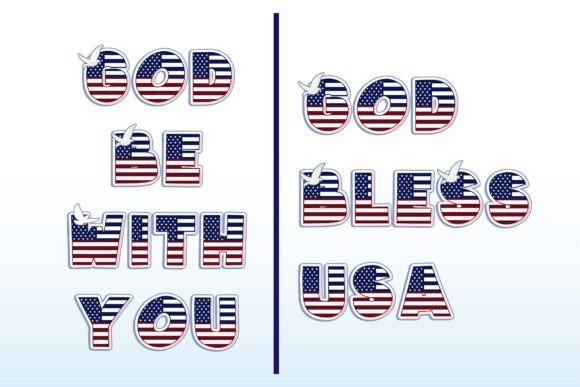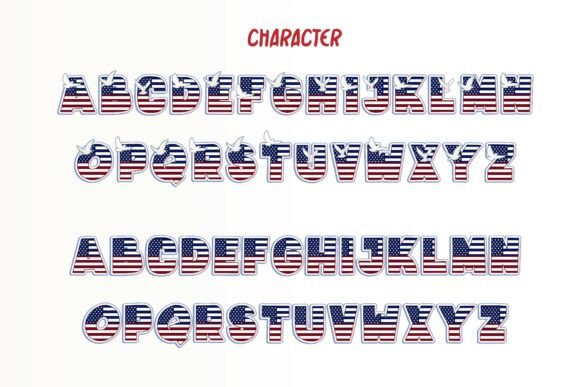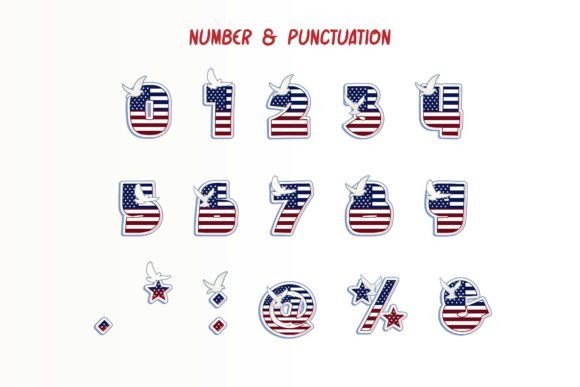
The Freedom to Create: Unlocking the Potential of the Freedom Font
I’ll never forget the moment I stumbled upon the Freedom Font. I was working on a project for a client who wanted a custom design that screamed patriotism and freedom. I had spent hours scouring the internet for the perfect font, but nothing seemed quite right. That was until I stumbled upon this gem – a flag color font that instantly caught my eye. In this article, I’ll share my experience with the Freedom Font, its features, and how to make the most of it in your designs.
- ✨ Unique and eye-catching design: The Freedom Font is not your average font. Its flag color design makes it stand out from the crowd and adds a cool touch to any creation.
- ✅ Highly versatile: Whether you’re working on custom designs, DIY crafts, or just any project that requires a bold statement, this font is an excellent choice.
While the Freedom Font is an excellent addition to any design project, there are a few things to keep in mind:
- ⚠️ Limited language support: The Freedom Font may not support all languages, so be sure to check the character set before using it for a project.
- 🤔 Some OpenType features may not work on all platforms: While the font has excellent OpenType features, some may not work on certain platforms or software.
The Designer Inspiration Behind the Freedom Font
The Freedom Font was designed with the intention of creating a font that embodies the spirit of freedom and patriotism. The designer, inspired by the American flag, created a font that features a unique and eye-catching design. The result is a font that’s perfect for designers, crafters, and creative hobbyists who want to add a touch of personality to their projects.
Q: What is the Freedom Font?
A: The Freedom Font is a flag color font designed to add a touch of patriotism and freedom to your designs.